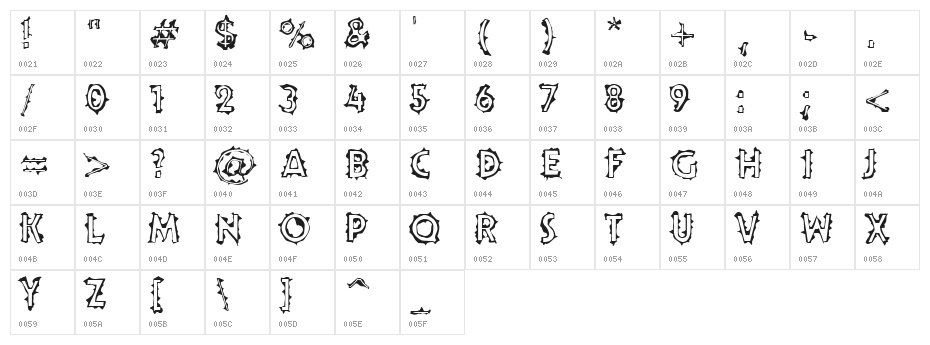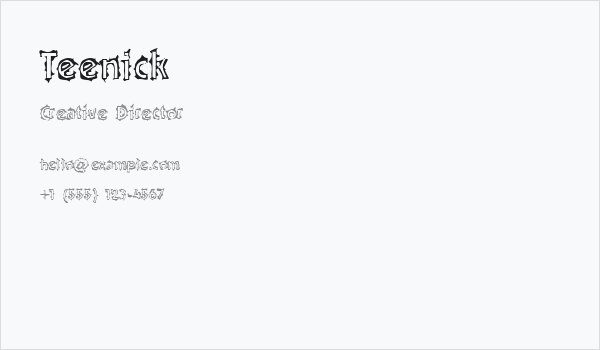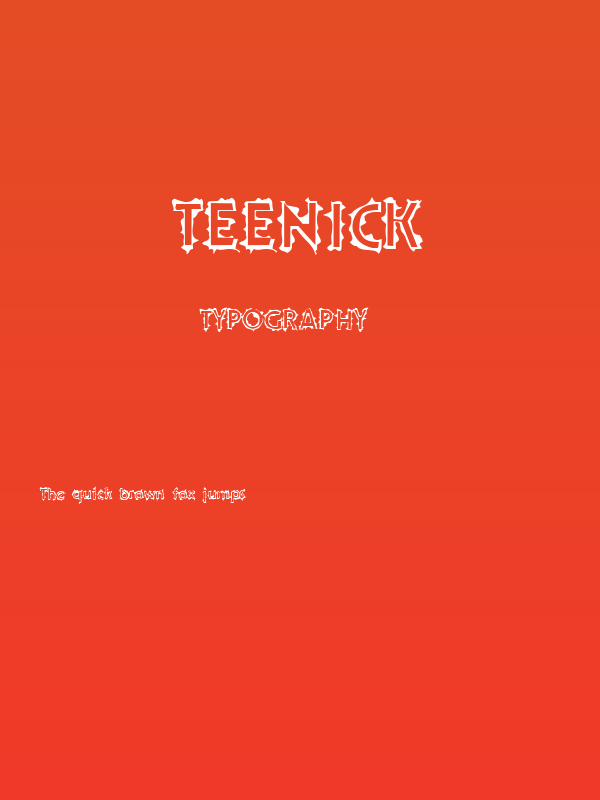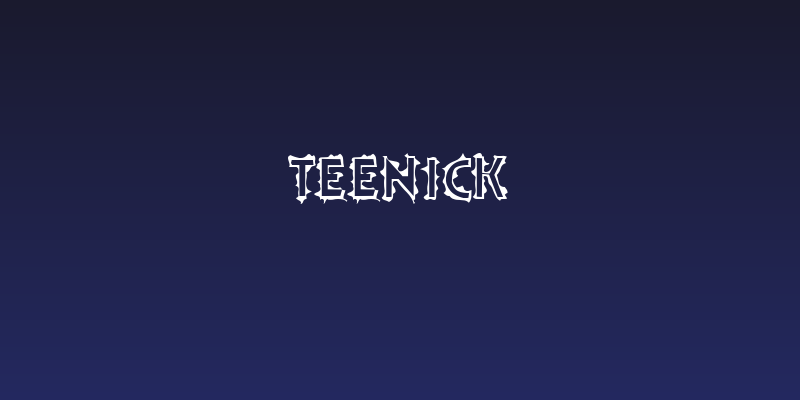
Teenick Font
Teenick Description
This font features a bold, edgy design with sharp, jagged edges that give it a rebellious and dynamic appearance. The uppercase and lowercase letters maintain a consistent style, with each character exhibiting a unique, rugged outline that adds a sense of movement and energy. The numbers and special characters follow the same aesthetic, ensuring a cohesive look across all elements. The font's distinct style makes it stand out, capturing attention with its unconventional and artistic flair. Its boldness and unique character shapes make it suitable for projects that require a strong visual impact.
| Overall Style | Modern, Edgy |
| Use Case | Logos, Posters, Headlines |
| Proposed Projects | Ideal for music album covers, skateboarding brands, graffiti art, and edgy fashion labels. |